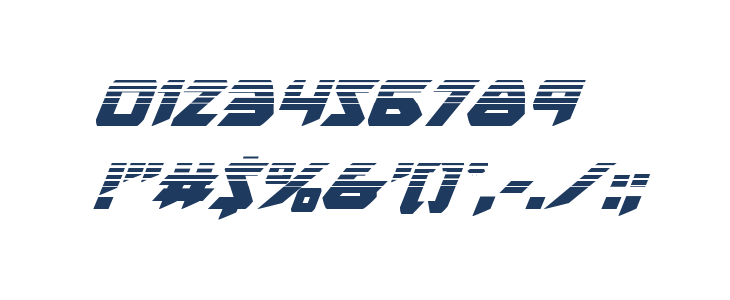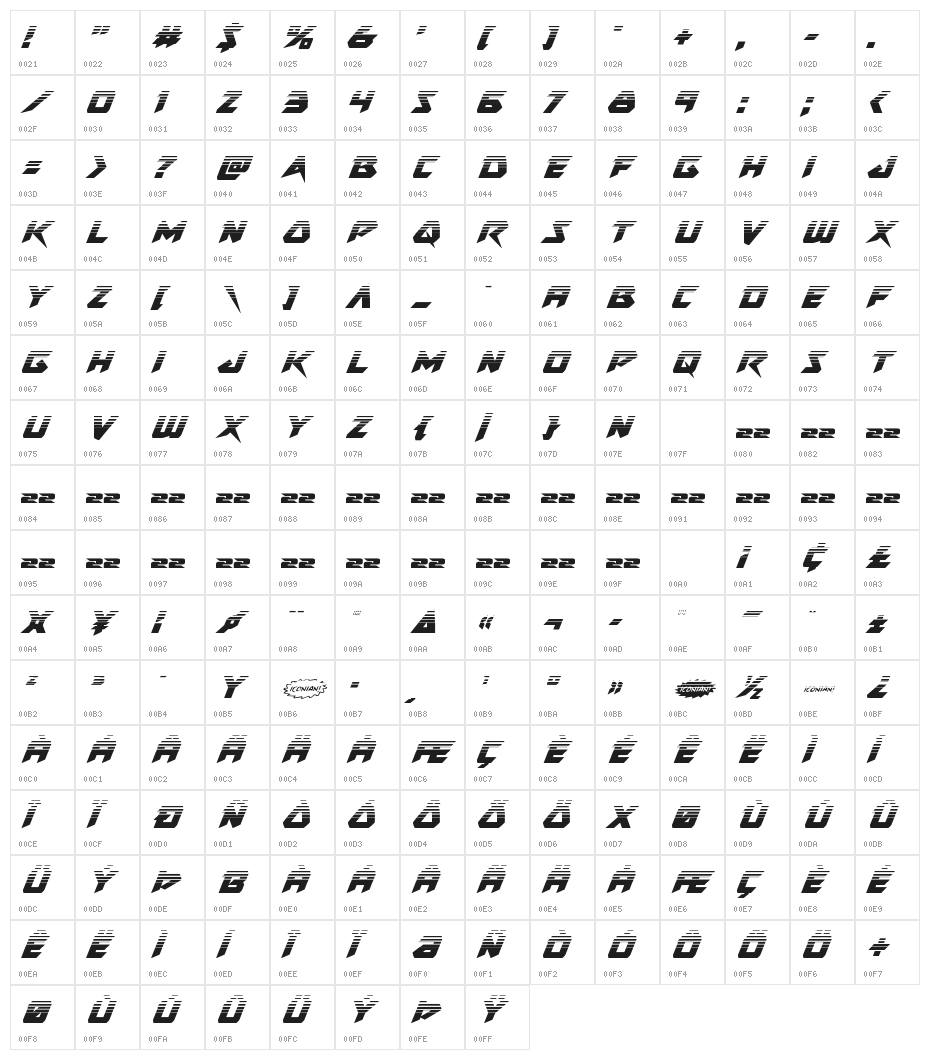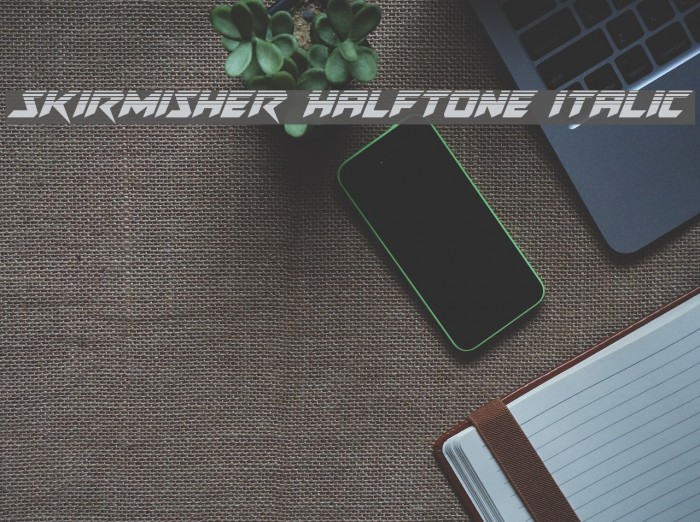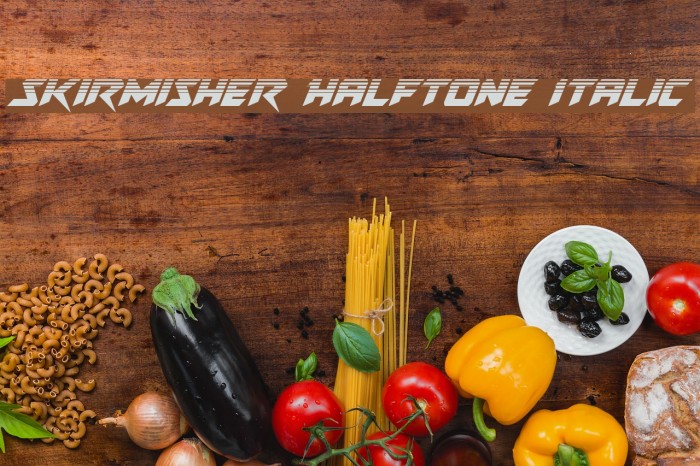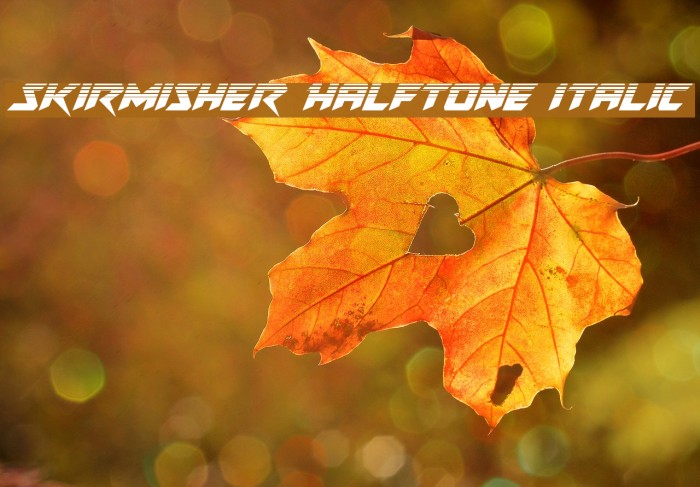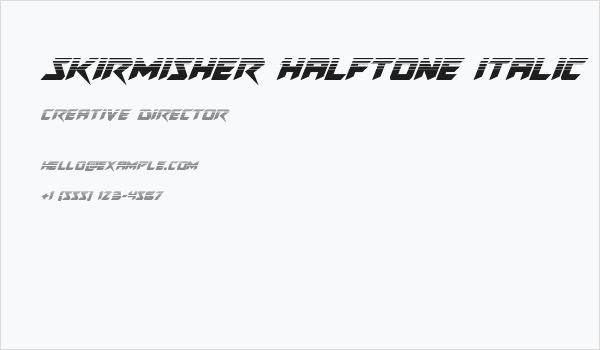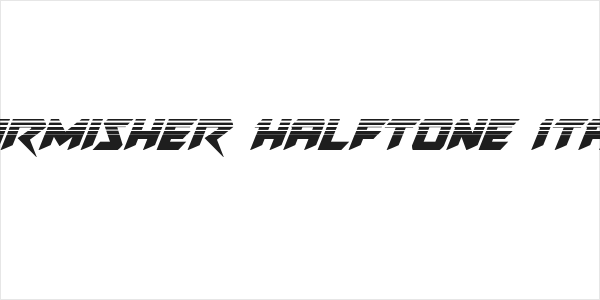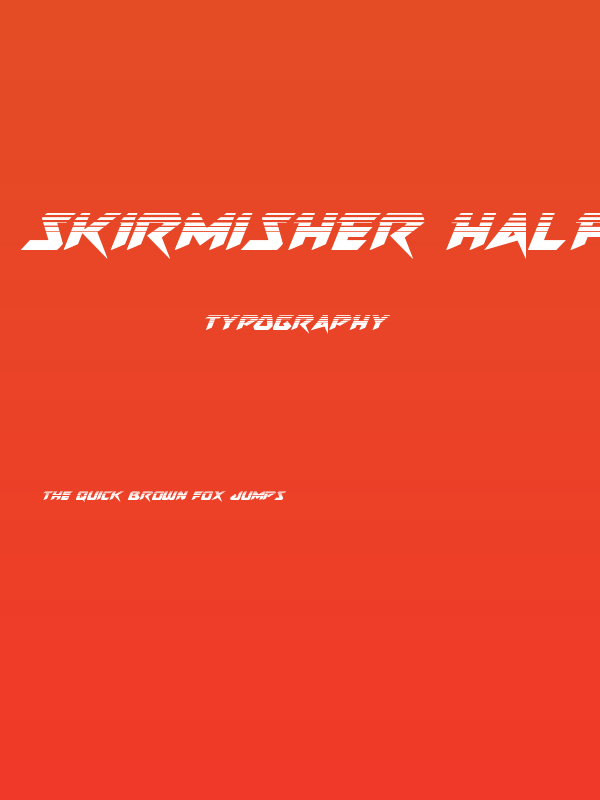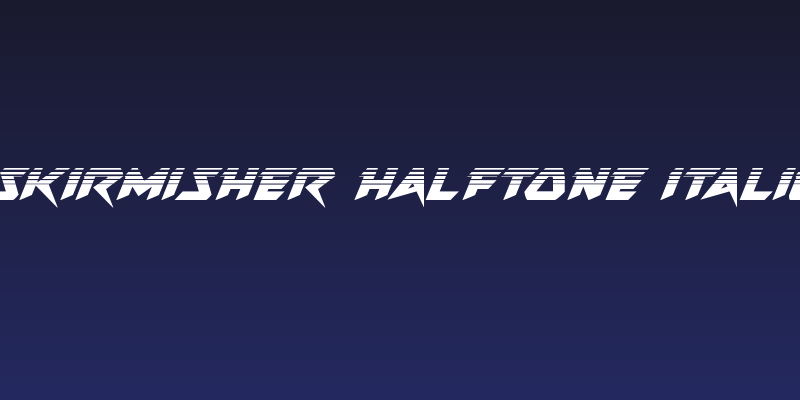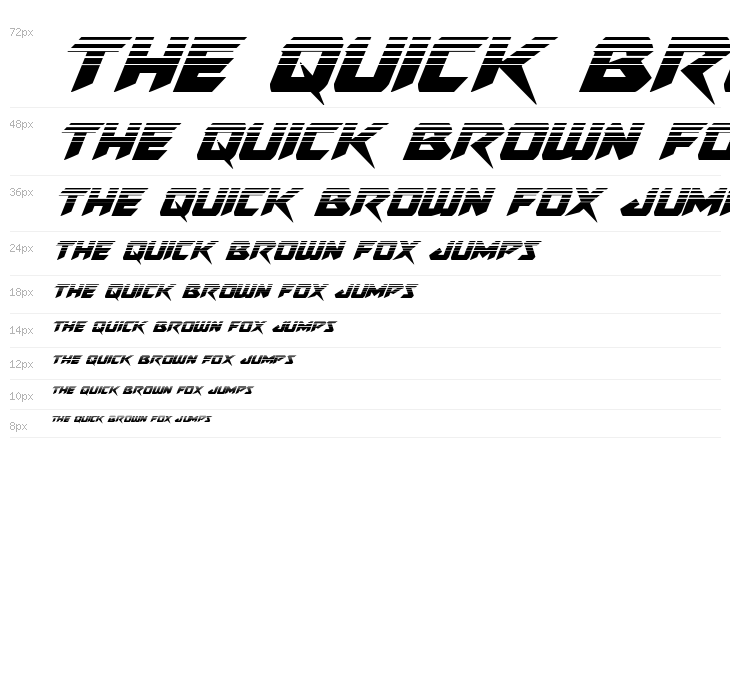
Skirmisher Halftone Italic Font
Skirmisher Halftone Italic Description
This font features a bold and dynamic design with a distinct halftone effect that gives it a modern, edgy appearance. The characters are italicized, adding a sense of motion and speed. The uppercase and lowercase letters maintain a consistent style, with sharp angles and a futuristic aesthetic. The numbers and special characters are designed to match the overall theme, making them suitable for a variety of creative applications. The font's unique style makes it ideal for projects that require a strong visual impact.